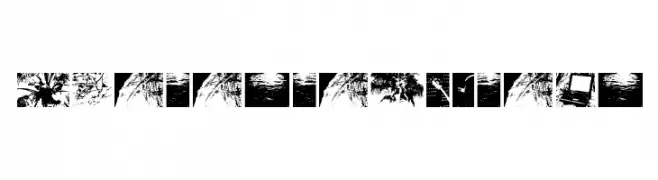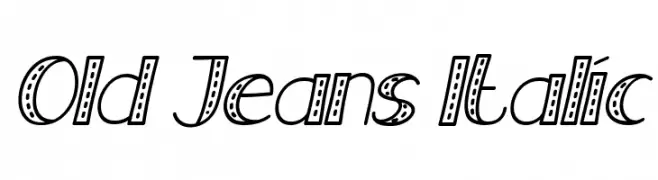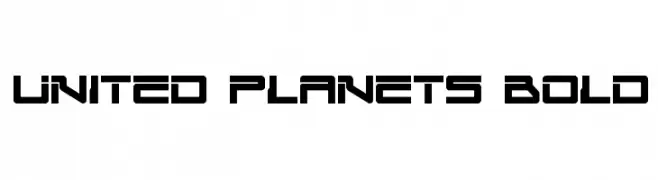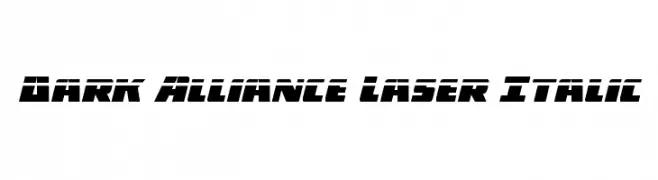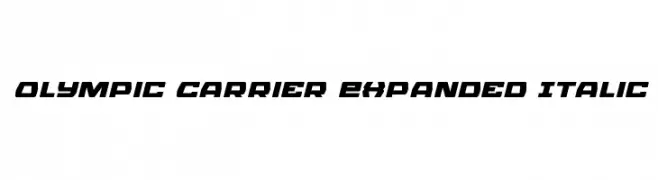
A clean, modern sans-serif typeface with geometric letterforms and consistent stroke width.
Decorative font with each glyph as a distinct vector illustration.
A playful, italicized decorative font with a dotted pattern and retro flair.
A bold, futuristic font with geometric and angular design.
A bold, futuristic italic font with sharp, angular edges.
A bold, expanded, and italic font with a modern and dynamic style.
A bold, geometric font with a modern and industrial style.